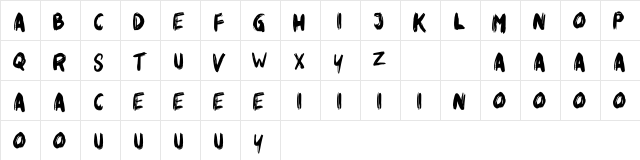
Rikabrush Regular
Regular ·  Sigit Dwipa ·
DesignerSigit Dwipa
Design Context for Rikabrush Typeface
Rikabrush flows with the natural rhythm of handwritten lettering, making it ideal for designs that call for warmth and personal expression.